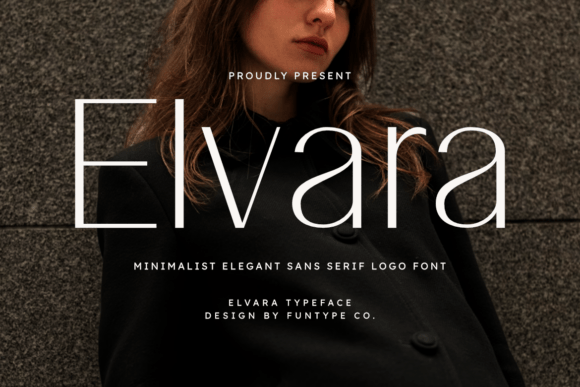
Have you ever stared at a blank page, cursor blinking, and thought, “This is it. This is the moment where my design comes to life.” The pressure is on, and the right font can make all the difference. That’s where Elvara Font comes in – a sophisticated sans serif typeface designed to evoke the essence of modern luxury.
Crafted with a focus on clean lines and refined proportions, Elvara Font is the ultimate tool for creating high-end brand identities, sleek logos, and professional editorial layouts. Its unique, subtle character details provide a distinct personality without compromising its minimalist core, making it the perfect choice for designers seeking to achieve a polished, “quiet luxury” aesthetic in their creative projects.
Whether you’re working on a high-end fashion campaign or a luxury lifestyle magazine, Elvara Font is the perfect companion to help you elevate your designs and leave a lasting impression.
Key Features of Elvara Font
- Font Family: Elvara is a sans-serif font family with multiple weights, from Light to Black.
- Unique Characteristics: Elvara features a clean and modern design with geometric shapes, giving it a distinctive look that is both elegant and professional.
Elvara Font Review
Overall, I’m impressed with the Elvara Font, but it’s not without its quirks. Let’s dive in and explore what works well and what doesn’t.
- The Elvara Font has a unique and elegant design that’s perfect for creative projects.
- The font is highly customizable, allowing you to adjust the weight, spacing, and more to fit your needs.
- The font is also highly legible, making it suitable for both body text and headings.
- The font can be quite overwhelming when used in large quantities, so be careful not to overdo it.
- The font doesn’t have a lot of supporting characters, which can make it difficult to use for languages that require a lot of special characters.
- The font is also quite large in file size, which can make it difficult to use in projects with limited storage space.
The Elvara Font is a solid choice for creative projects, but it’s not the best fit for every project. With some careful planning and customization, it can be a beautiful addition to your design. However, be aware of its limitations and take steps to mitigate them.
Elvara Font is perfect for:
- Creating elegant and sophisticated designs.
- Adding a touch of luxury to your branding.
- Designing high-end business materials, such as brochures and reports.
Remember to use Elvara Font consistently throughout your design to create a cohesive and professional look.